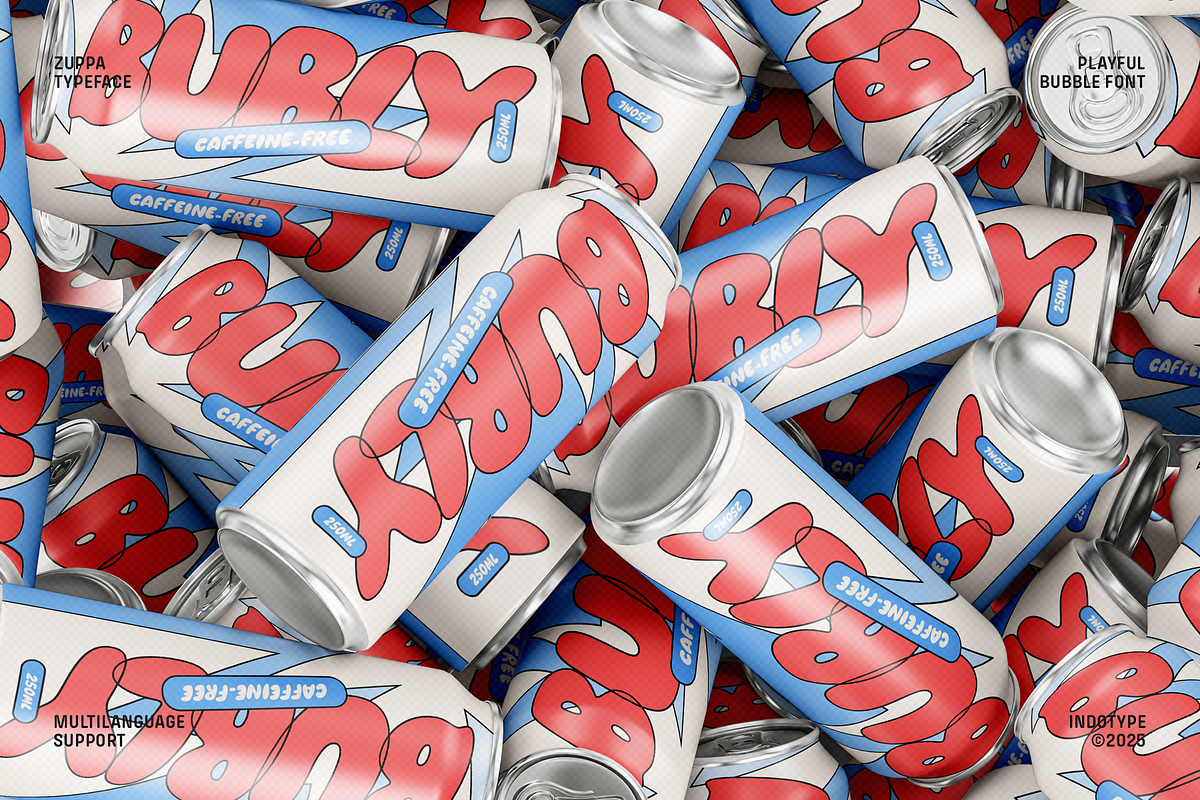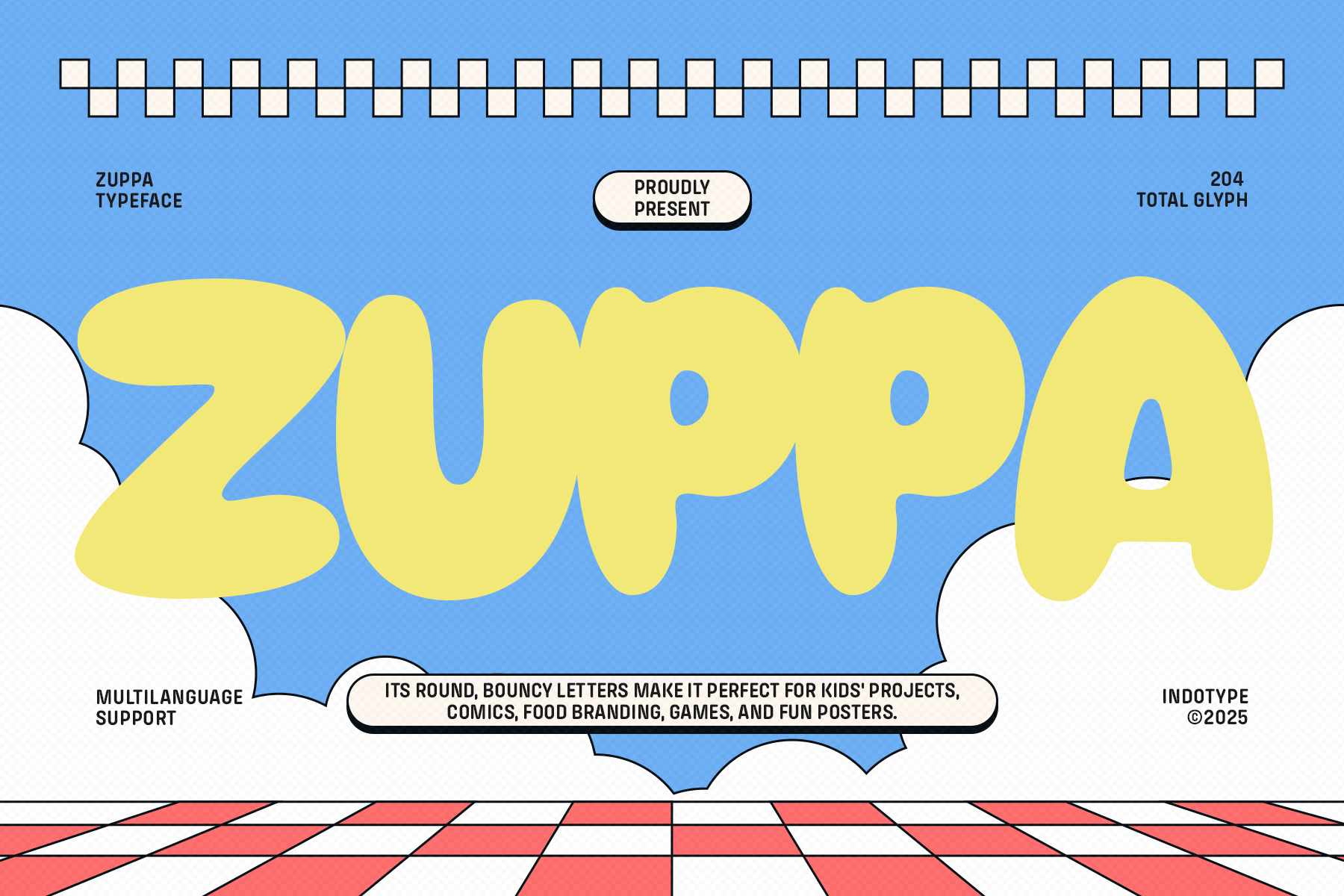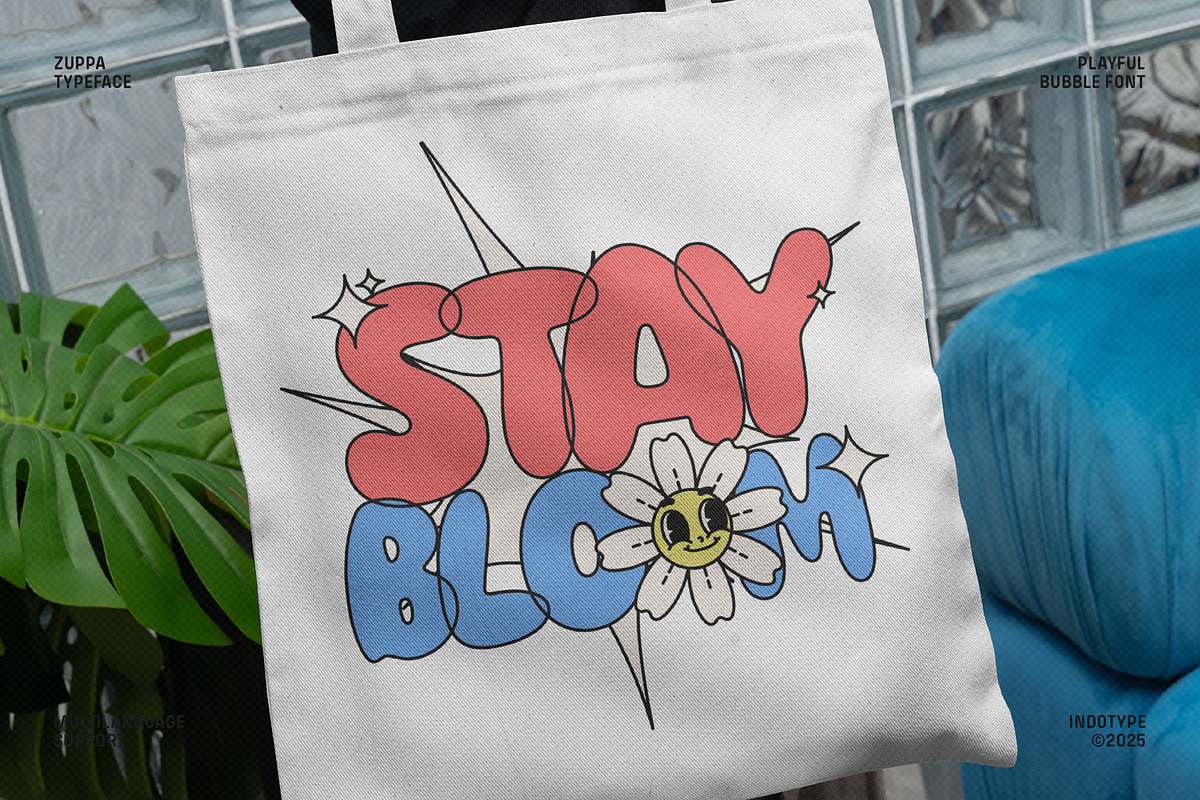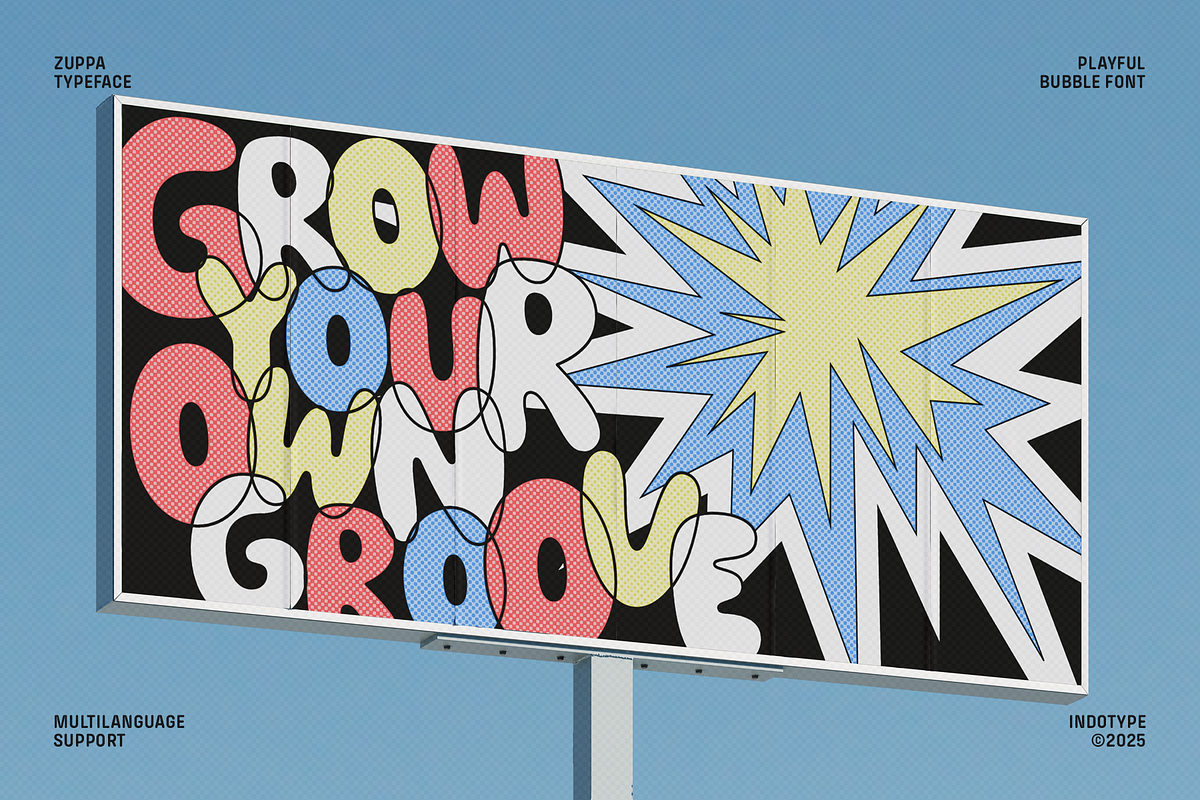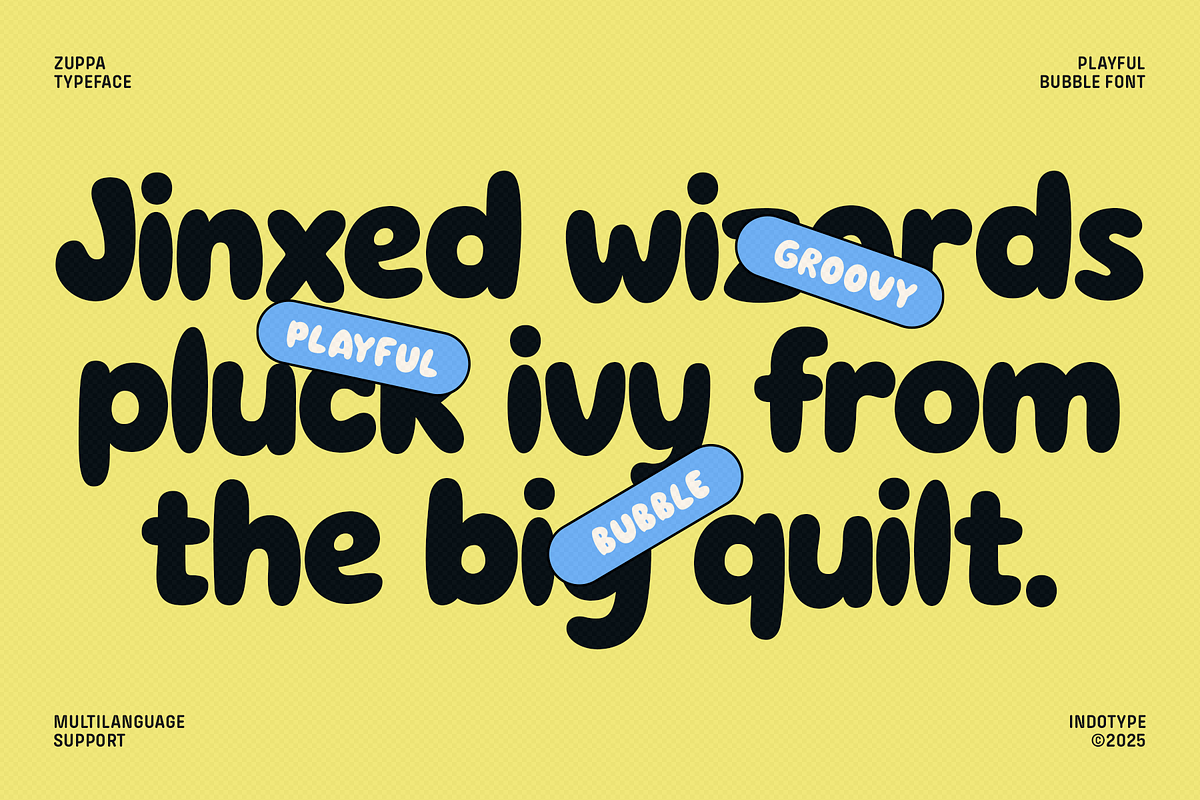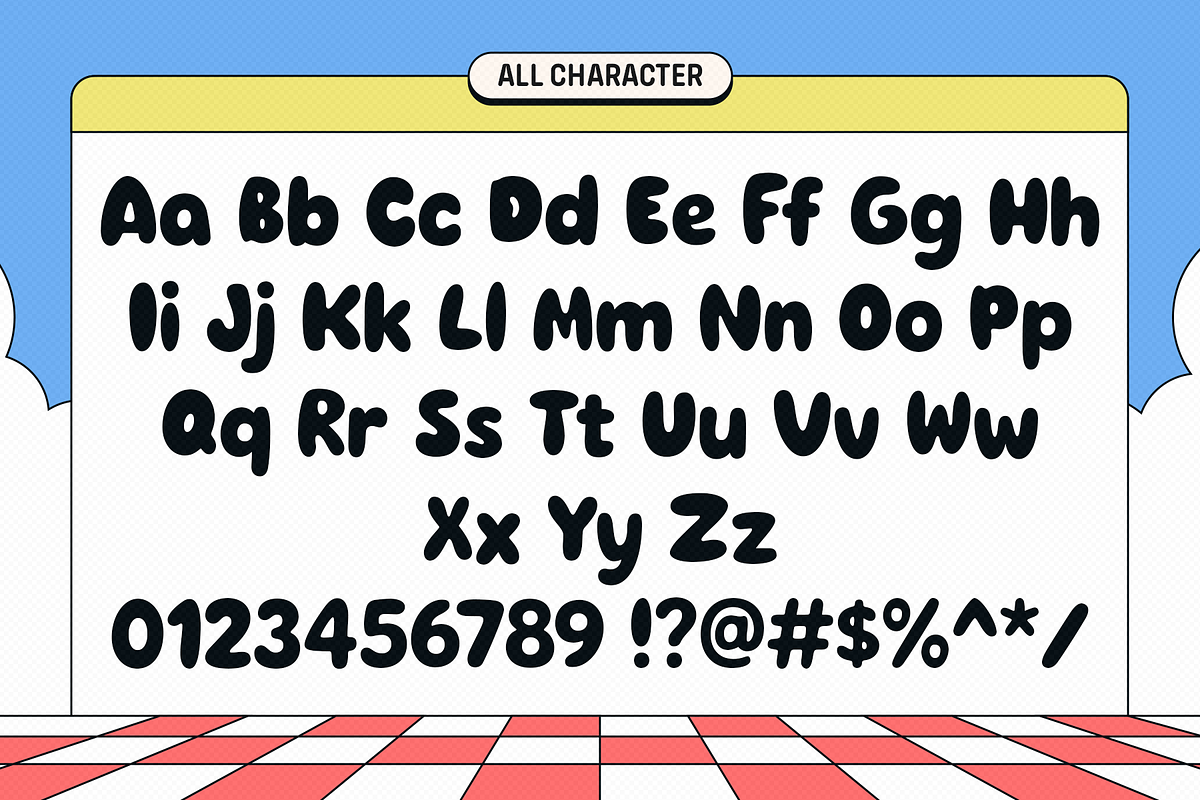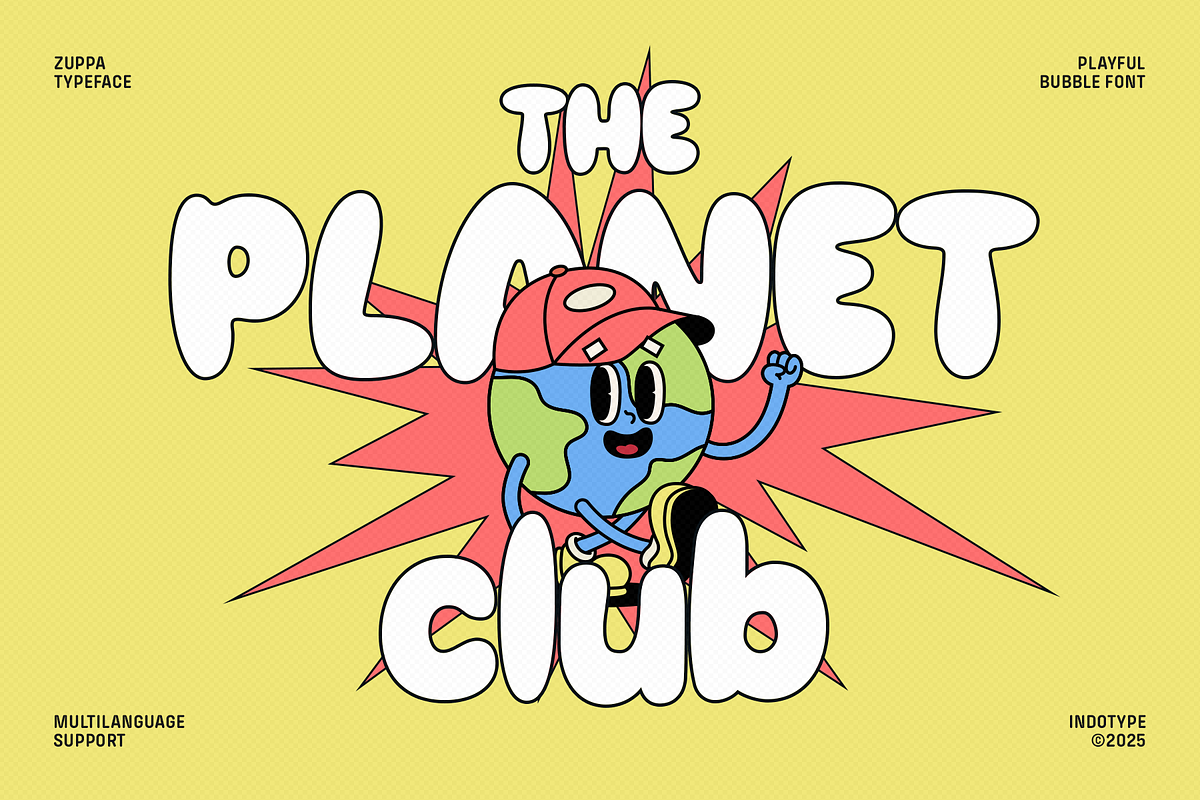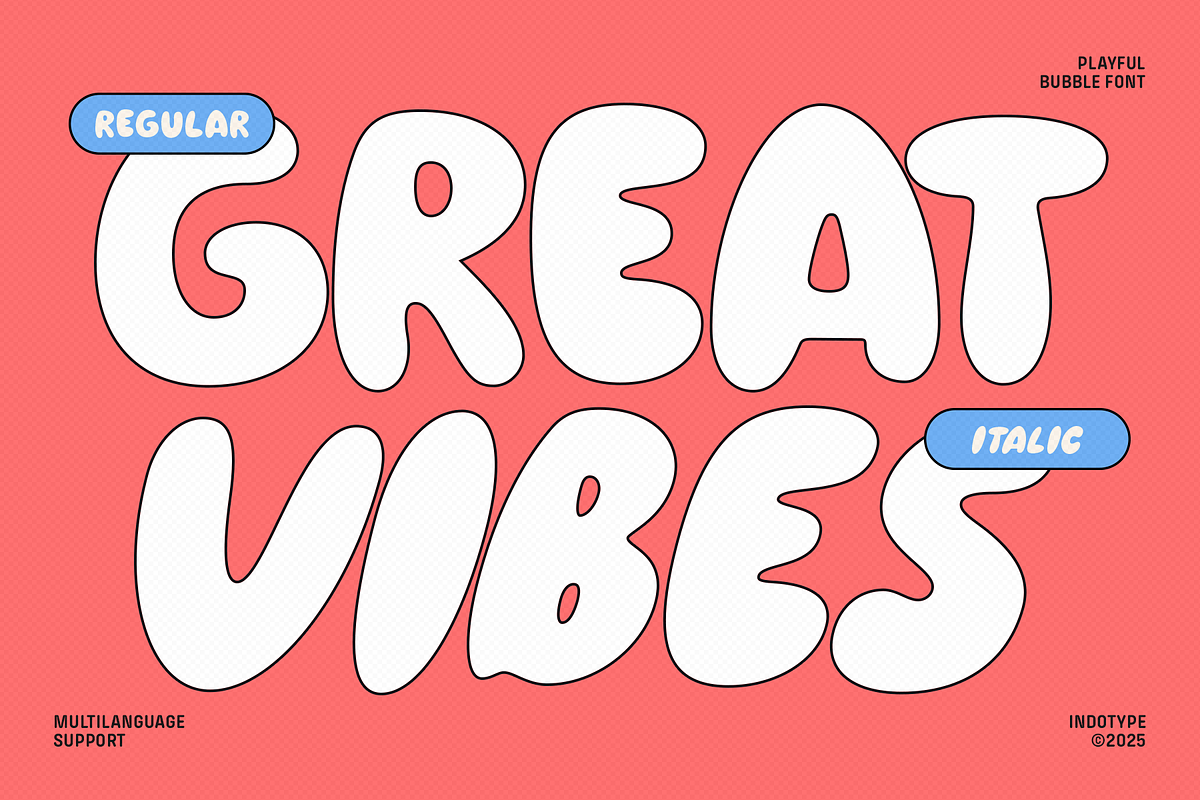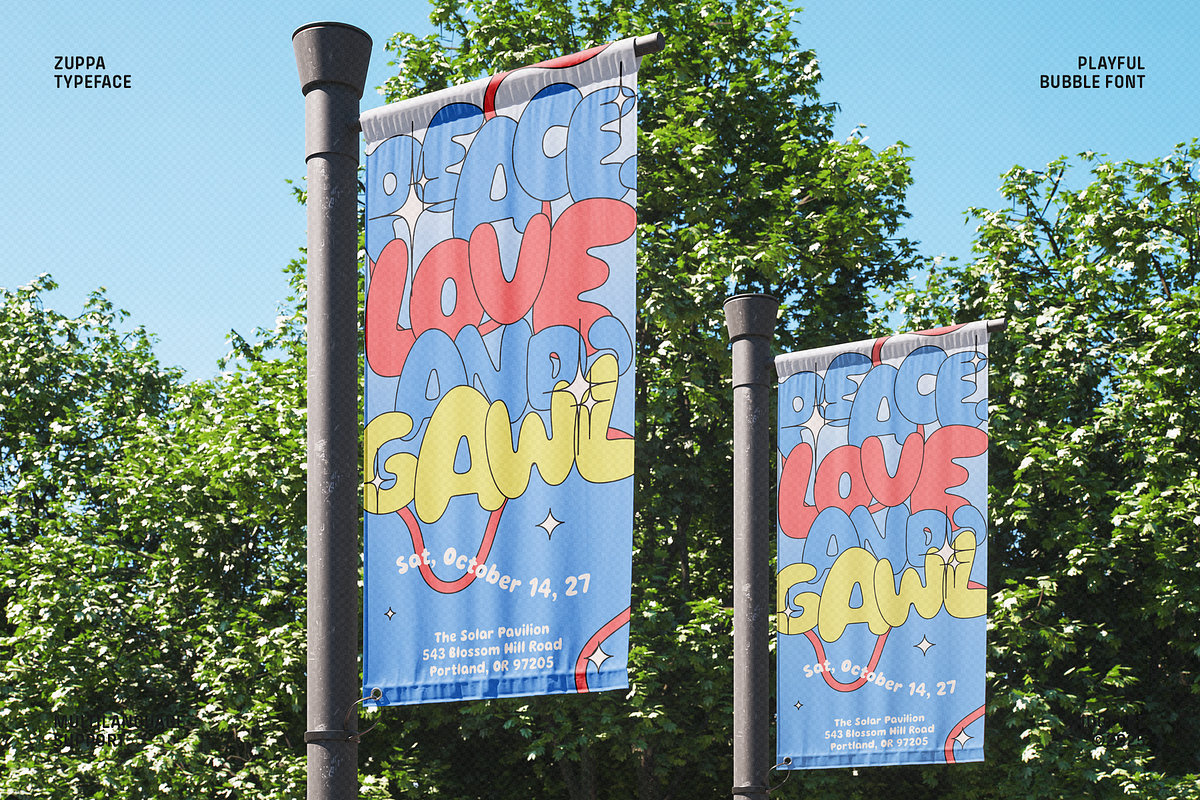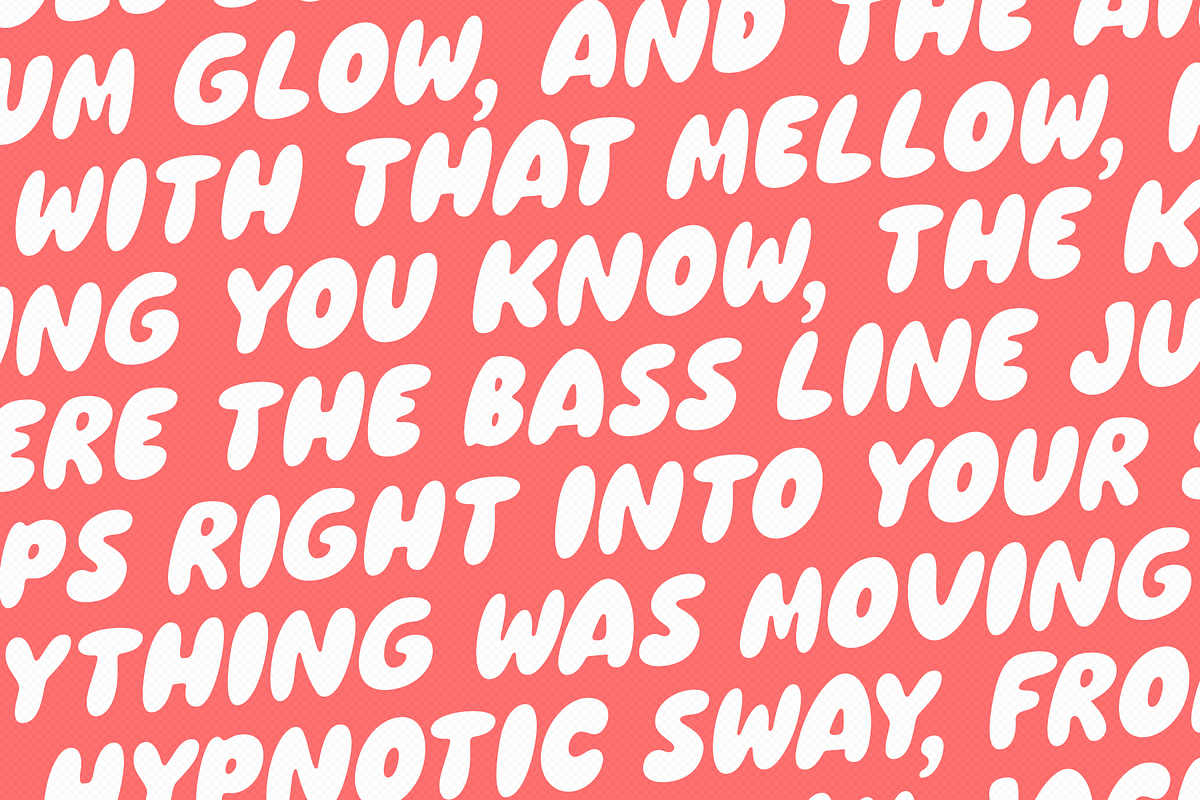
Zuppa - Playful Bubble Font
Meet Zuppa, a whimsical and irresistible bubble typeface that brings instant joy and energy to any project. Characterized by its perfectly round, bouncy letters and friendly curves, Zuppa radiates a cheerful, approachable personality that’s impossible to ignore. Its design captures the spirit of playfulness, making every word look like it’s about to bounce right off the page. With 204 total glyphs and comprehensive multilanguage support, Zuppa is as versatile as it is fun. It’s the perfect choice for children’s books, animated comics, playful food and beverage branding, casual game interfaces, and vibrant posters. Inject a dose of pure delight into your designs with Zuppa—the font that proves typography can be seriously fun. • Ideal for: Children’s Media, Comic Books, Food & Beverage Branding, Game Design, Party Invitations, Playful Logos, Social Media Graphics. • Classification: Display, Bubble, Rounded, Playful, Comic. • Attributes: Cheerful, Friendly, Energetic, Whimsical, Approachable, Fun, Bouncy.